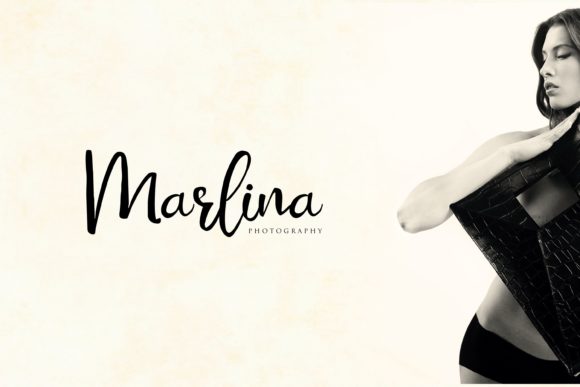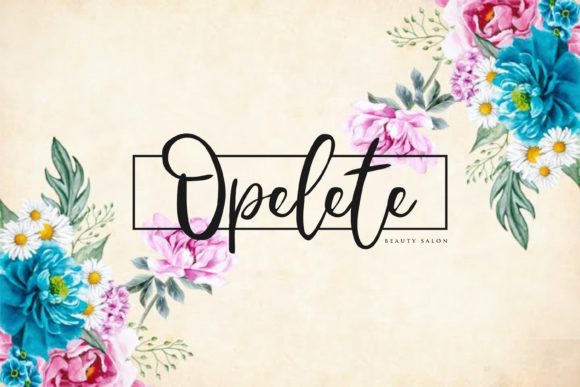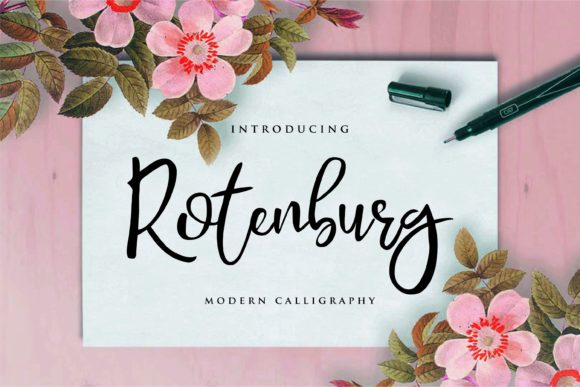
Rotenburg Font
The Rotenburg is a modern calligraphy font with a dancing baseline. It has a classy and elegant style that is perfect for adding a luxurious look to your designs.